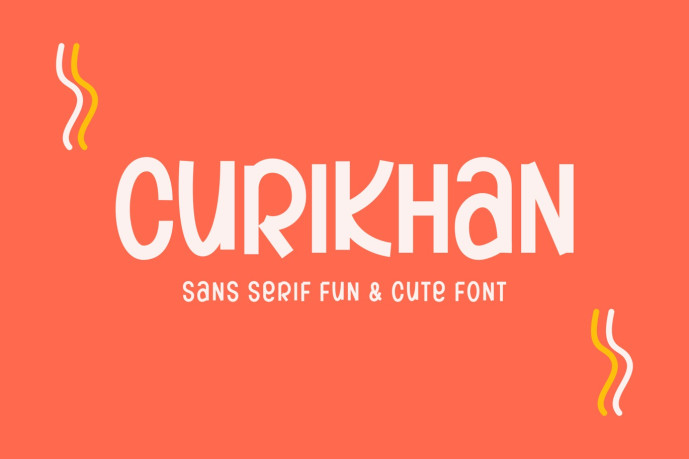
Curikhan – Sans Serif Fun And Cute Font
Introducing our new product Curikhan – Sans Serif Fun And Cute Font
Curikhan – Sans Serif Fun And Cute Font is a bold and authentic display font. The font is suitable for any branding project like logo, esport, and many more. outstanding in a wide range of contexts.